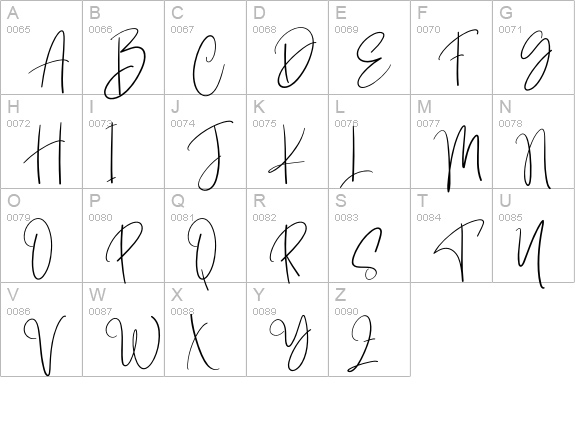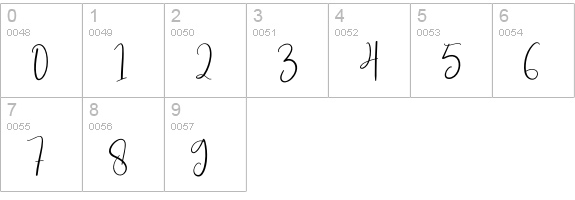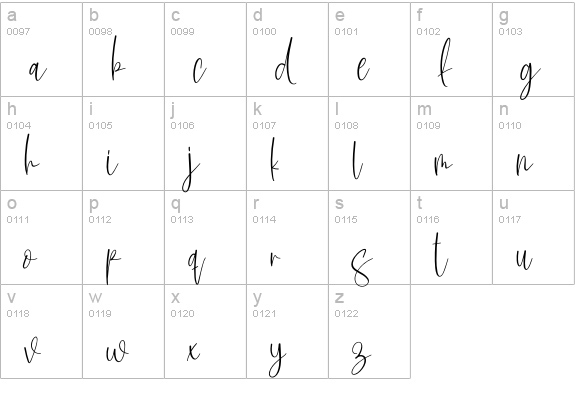
Jupiter Signature Font Details
Jupiter Signature is a free for personal use font in the Script > Handwritten category, designed by scratchones. It has been downloaded 34 times and is available for Windows, Mac and Linux.
The Jupiter Signature font is a stunning and elegant typeface that exudes sophistication and charm. With its sleek lines and graceful curves, this font is perfect for adding a touch of class to any design project. Whether you are creating wedding invitations, branding materials, or social media graphics, Jupiter Signature will elevate your work to the next level.